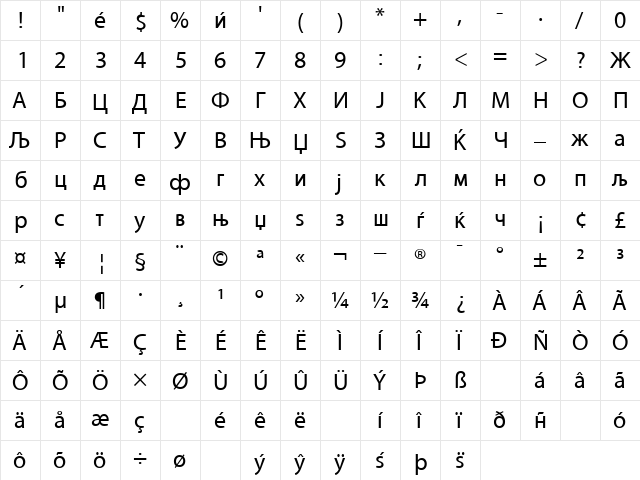
MMyriadRoman Regular
Design Context for MMyriadRoman Typeface
MMyriadRoman offers clean, dependable letterforms without strong stylistic allegiance, making it a practical choice for designers who need flexibility.
Pro Tip: Use MMyriadRoman in both headline and body roles to test its range before committing to a single application.